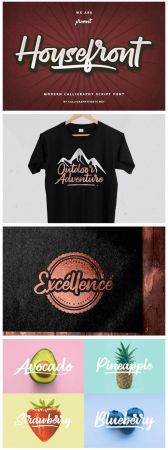
DesignOptimal - Housefront Font
Housefront is a classic script font. Use this font to add that special handwritten touch to any design idea you can think of!